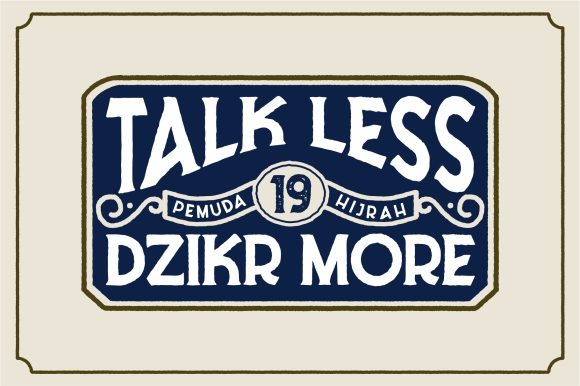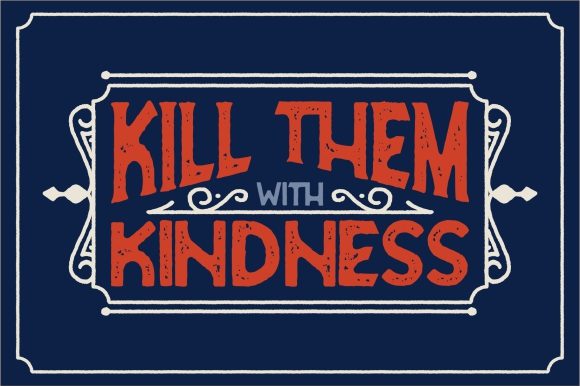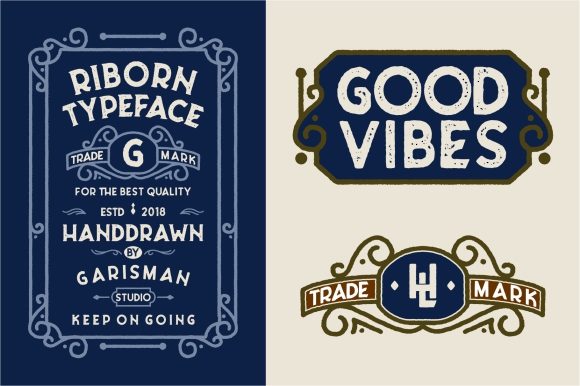
Introduction to Riborn Family Font
The Riborn begins with light streaks that form a vintage style with a touch of rough and stamp.
It includes 4 amazing font versions and one doodles version Included as a bonus are unique ornaments with a classic and minimalist style.
Key Features of Riborn Family Font